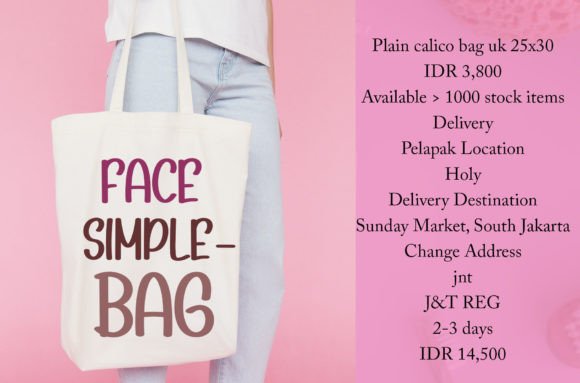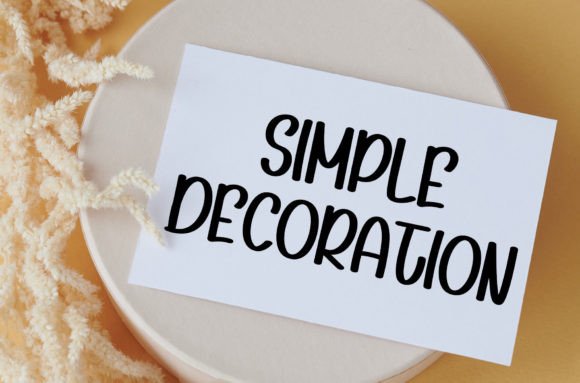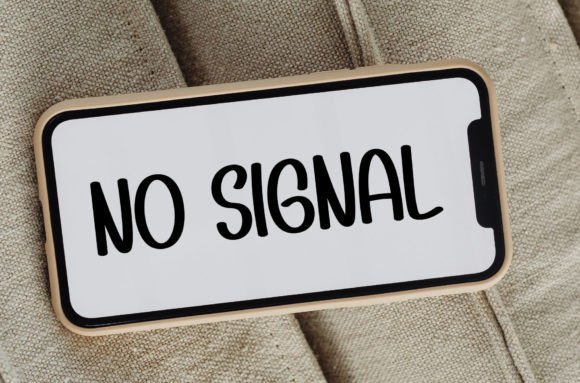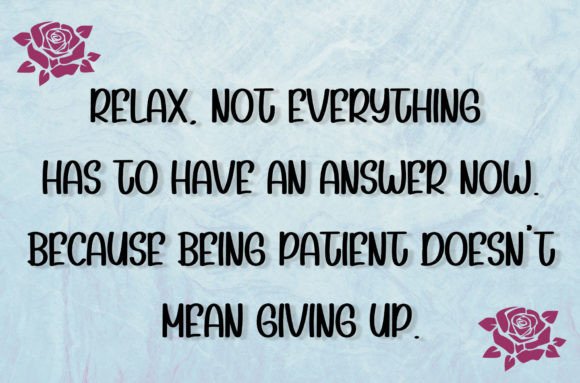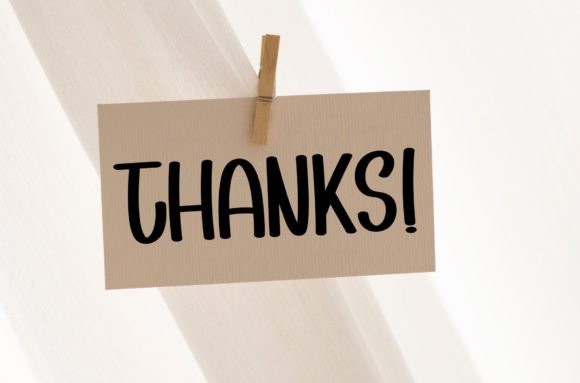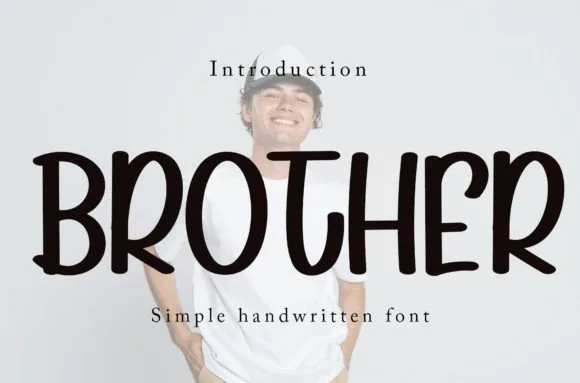
Brother Font
About Brother Font
Brother font is a simple and friendly handwritten typeface designed to add warmth and personality to a variety of creative projects. Whether you’re working on crafts, digital design, presentations, or making heartfelt greeting cards, Brother font can become your go-to choice. Its approachable and clean style makes it a versatile font that suits numerous occasions and design needs.
Warm and Approachable Handwritten Style
Brother font features a natural and friendly handwritten look. The smooth, flowing letters provide excellent readability while giving your designs a personal touch. This font’s simplicity adds a sense of warmth and comfort, making it perfect for projects that require a genuine, heartfelt feel.
Ideal for Crafts and DIY Projects
If you enjoy hands-on creative work, Brother font will enhance your crafts and DIY projects beautifully. It works well on handmade cards, personalized gifts, labels, and scrapbooks, adding a soft handwritten charm that complements various craft styles. Its neat appearance ensures your projects look both professional and heartfelt.
Perfect for Digital Design and Presentations
Brother font adapts well to digital uses. It is ideal for social media graphics, blog headers, websites, or business presentations where a friendly, human touch is needed. Its clear and simple style ensures your message is easy to read and visually engaging across different devices and screen sizes.
Great for Greeting Cards and Invitations
Greeting cards and invitations benefit from fonts that convey sincerity and warmth. Brother font fits these needs perfectly. Whether you’re designing holiday greetings, thank-you notes, wedding invitations, or birthday cards, this font adds a genuine and inviting tone that helps your message stand out.
Versatile for Various Creative Projects
Brotherfont is remarkably versatile despite its simplicity. It complements casual, playful designs as well as refined projects that require a handwritten touch. From branding and packaging to quotes and posters, Brotherfont enhances your work with a soft and friendly character.
Why Choose Brother Font?
Choosing Brotherfont means choosing a font that balances simplicity with personality. It offers a clean, approachable handwritten look without sacrificing professionalism or readability. Whether you are a professional designer or a creative enthusiast, this font can elevate your projects and make them more engaging and memorable.
Add Brother Font to Your Design Collection
Brotherfont is ready to be your trusted companion for all your design projects. Its friendly, simple style brings warmth and charm to your creative work. Try Brotherfont today and discover a versatile handwritten typeface that fits any occasion beautifully.